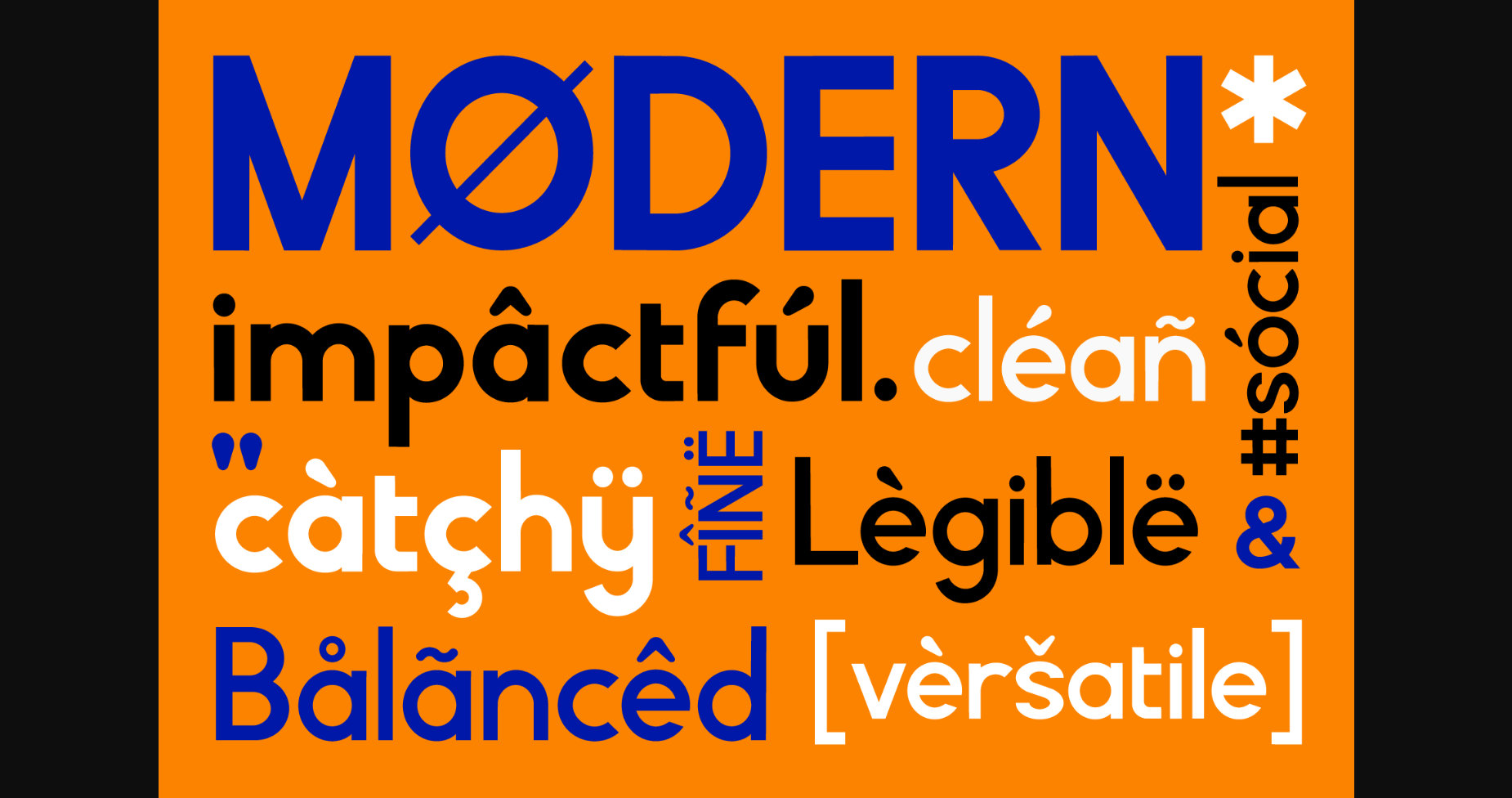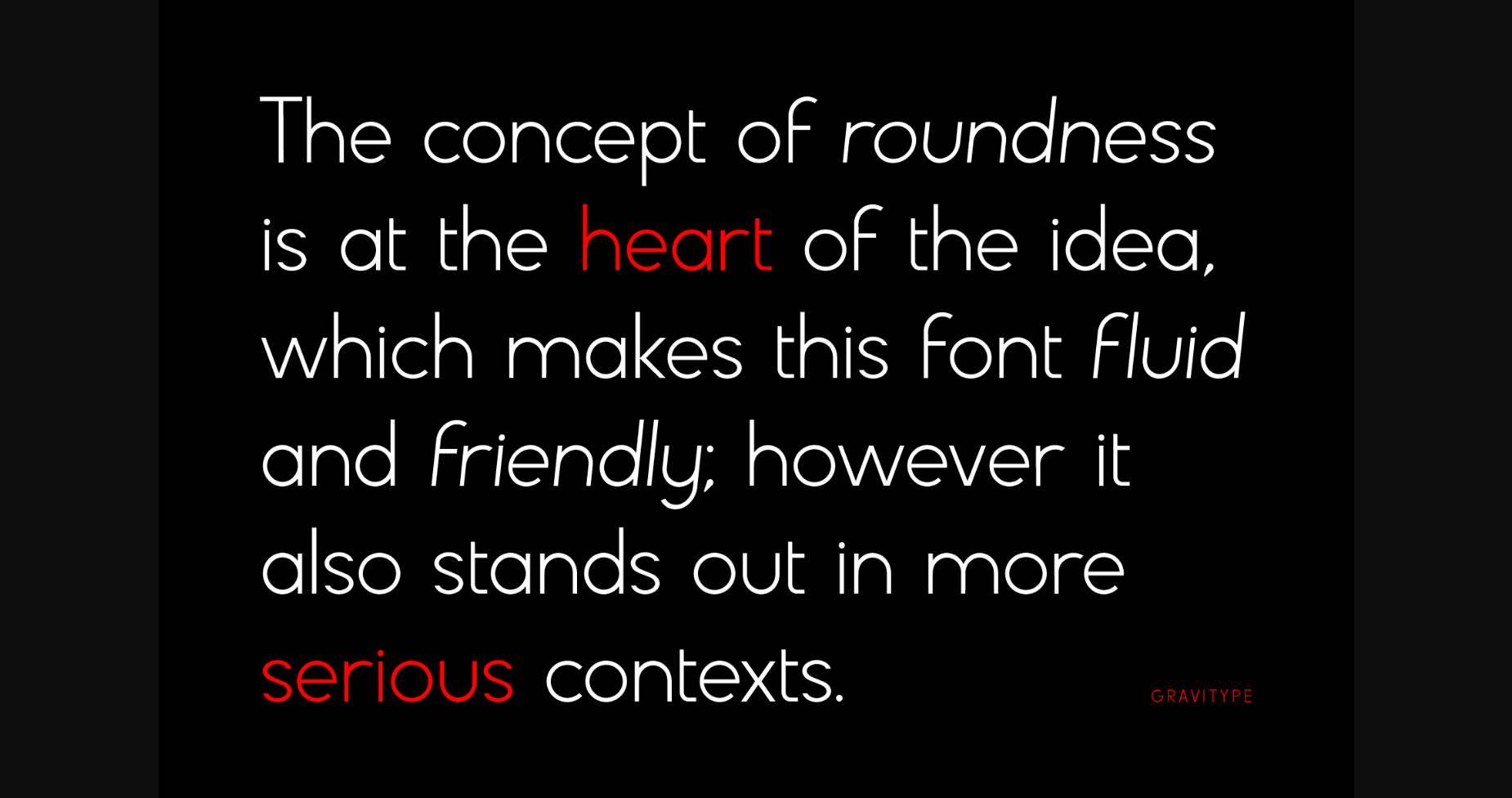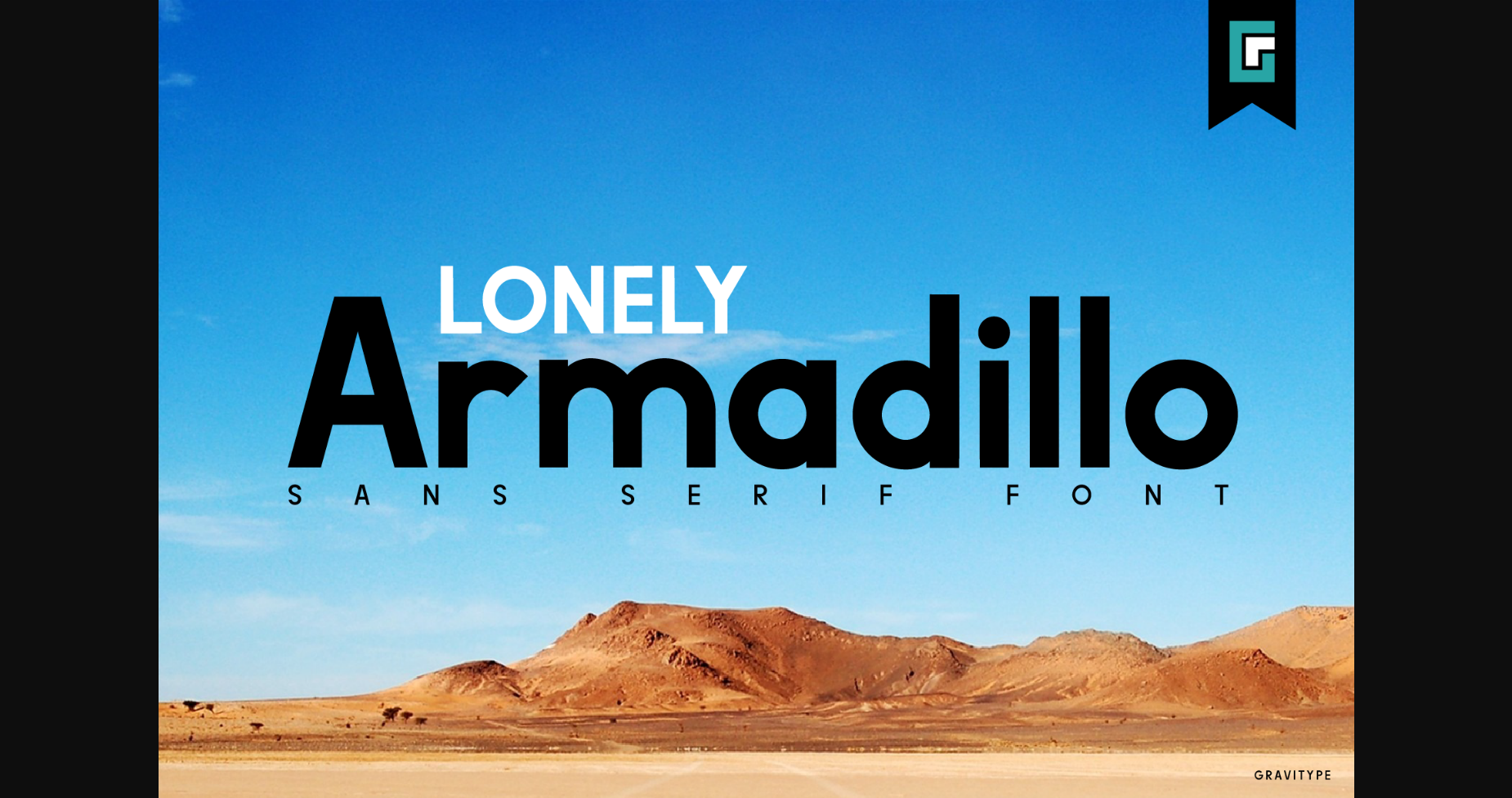
About Lonely Armadillo Font
Lonely Armadillo is an adaptable, modern and neat sans serif font. It can easily be matched to an incredibly large set of projects, so add it to your creative ideas and notice how it makes them stand out!